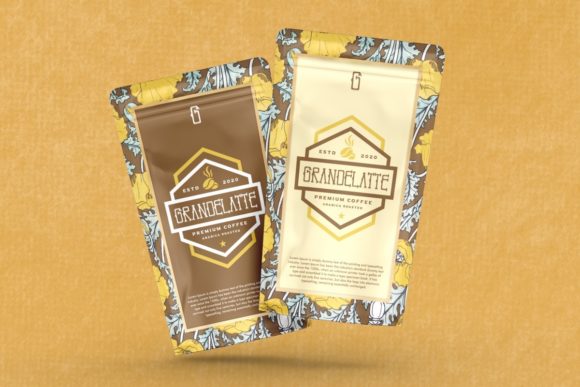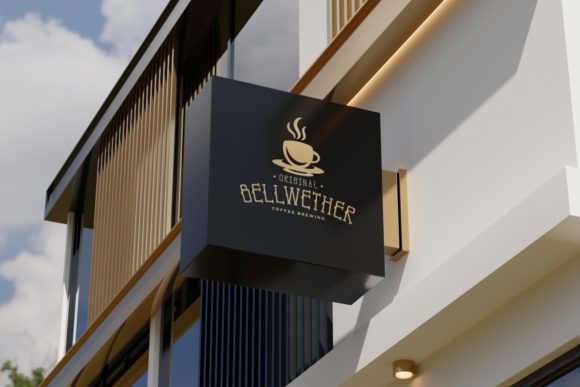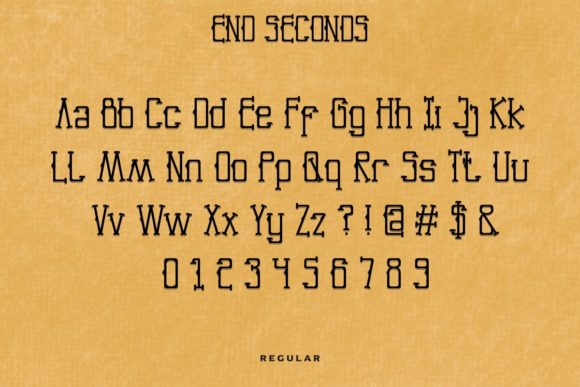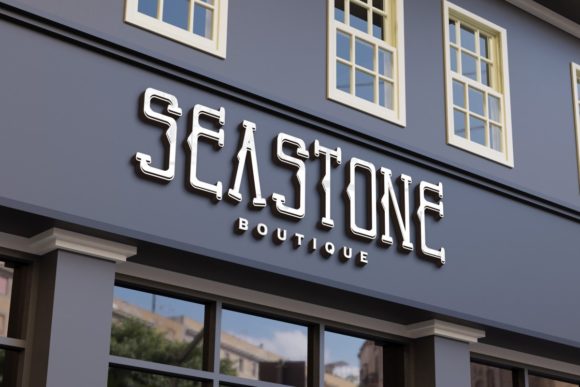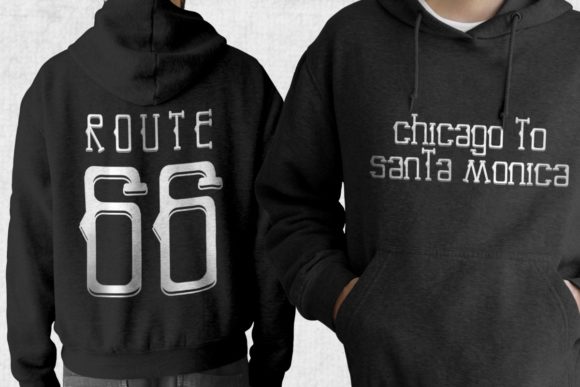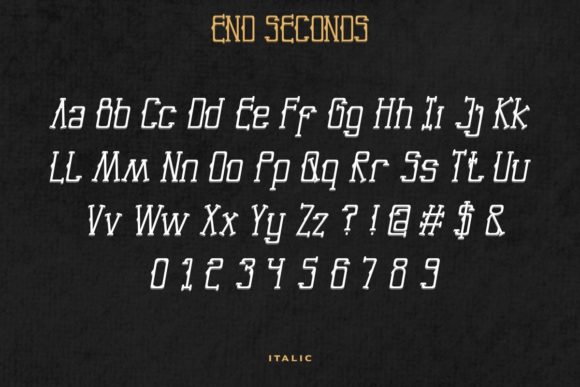
Introducing End Seconds Font: A Timeless Serif Display Font with Vintage Charm
In the world of typography, fonts play a crucial role in conveying the tone and personality of a brand, product, or event. For designers and crafters looking for a unique and stylish font to elevate their projects, End Seconds Font is an excellent choice. This serif display font boasts a distinctive vintage flair, making it perfect for a wide range of applications, from events and weddings to branding, art, and fashion.
Inspired by Vintage Classic Lettering
End Seconds Font draws inspiration from the classic lettering of yesteryear, evoking a sense of nostalgia and sophistication. The font’s design is characterized by intricate details, elegant lines, and a touch of playfulness, making it an ideal choice for creative projects that require a dash of personality. Whether you’re designing a logo, poster, or title, End Seconds Font is sure to add a touch of vintage charm to your work.
Versatile and Multifaceted
One of the standout features of End Seconds Font is its versatility. This font is not limited to a specific industry or application; instead, it can be used across a wide range of projects, including:
- Events and weddings: Add a touch of elegance and sophistication to your event branding, invitations, and signage.
- Branding: Create a unique and memorable brand identity with End Seconds Font.
- Artist and make-up: Showcase your creativity and style with a font that’s perfect for artist portfolios, make-up tutorials, and product branding.
- Outdoor and fashion products: Use End Seconds Font to add a touch of adventure and style to your outdoor and fashion product branding.
- Camping and adventure: Create a bold and eye-catching brand identity for your camping or adventure business.
Perfect for Headlines, Logos, Posters, and More
End Seconds Font is designed to make a statement, making it perfect for headlines, logos, posters, titles, and products. The font’s bold and eye-catching design ensures that your message will stand out, grabbing the attention of your audience and leaving a lasting impression.
Why Choose End Seconds Font?
So, why choose End Seconds Font for your next project? Here are just a few reasons:
- Unique and distinctive design: Stand out from the crowd with a font that’s truly one-of-a-kind.
- Vintage charm: Add a touch of nostalgia and sophistication to your projects.
- Versatile: Use End Seconds Font across a wide range of applications and industries.
- Elegant and refined: Perfect for high-end branding, events, and products.
In conclusion, End Seconds Font is a unique and stylish serif display font that’s perfect for designers and crafters looking to add a touch of vintage charm to their projects. With its intricate details, elegant lines, and versatile design, this font is sure to elevate your work and make it stand out. Whether you’re working on a branding project, event, or product design, End Seconds Font is an excellent choice.